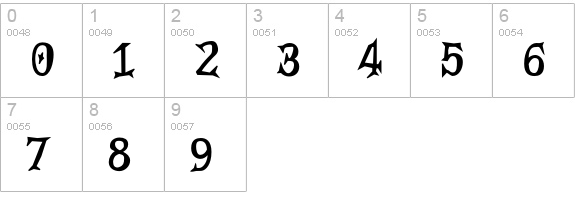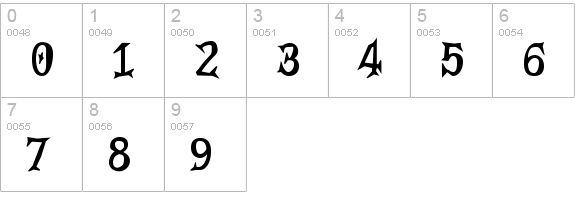
PriskaSerif-NotThatFat Font Details
PriskaSerif-NotThatFat font is a versatile and elegant typeface designed for various design projects. Its classic serif style exudes sophistication and professionalism, making it perfect for both print and digital applications. The well-balanced letterforms and subtle variations in stroke width create a harmonious and refined look. This font is a great choice for branding, editorial design, and any project that requires a touch of sophistication. Whether you're designing a logo, a book layout, or a website, PriskaSerif-NotThatFat font will elevate your design and make it stand out. The best part? PriskaSerif-NotThatFat font is available for free download at FontsMarket.com. So go ahead and enhance your projects with this beautiful and timeless typeface without breaking the bank. Download PriskaSerif-NotThatFat font today and add a touch of elegance to your designs.